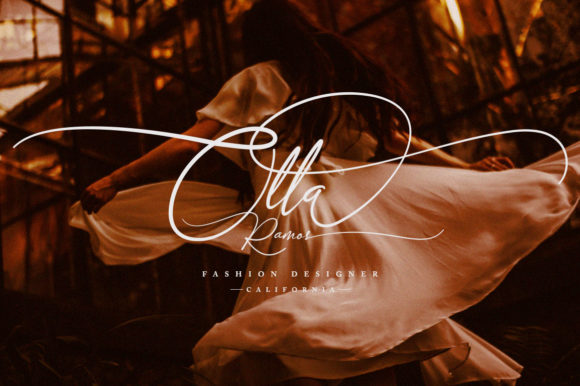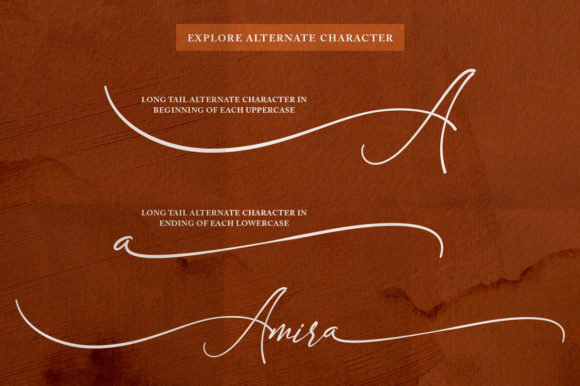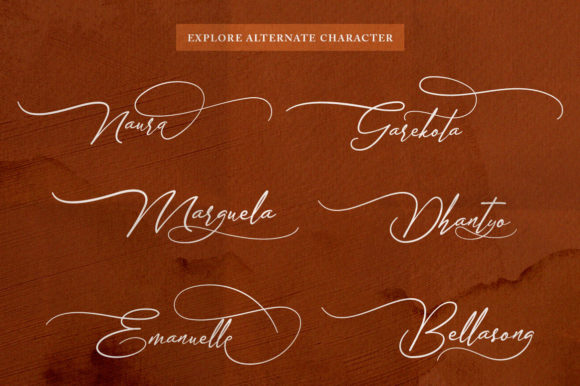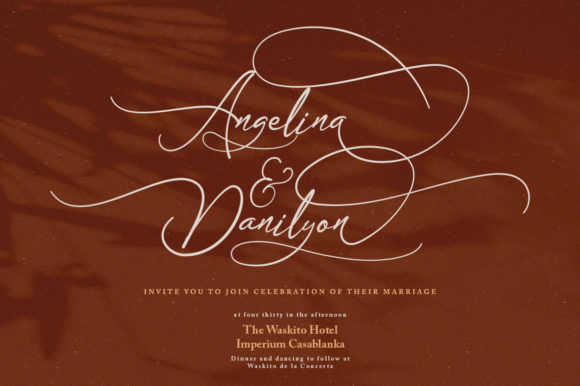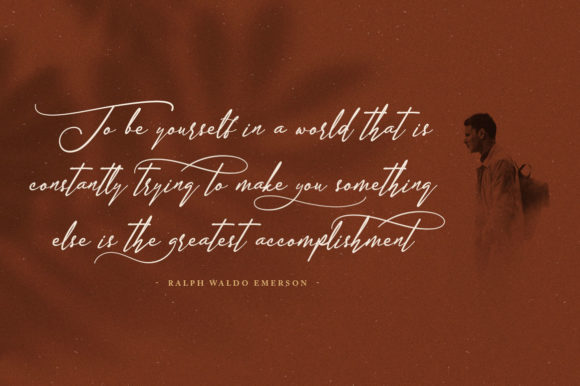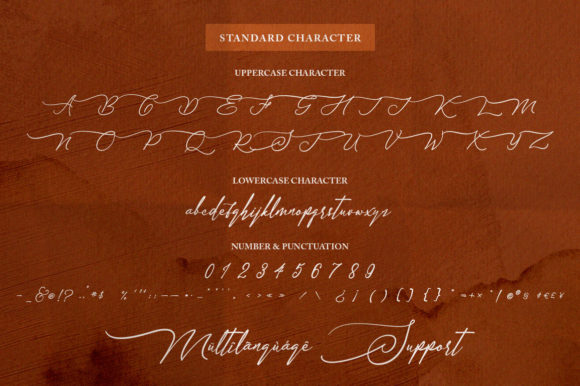
Introduction to Sandrina Font
Sandrina is a gorgeous calligraphy script font.
It features an incredibly classic style, while still keeping a friendly feel Sandrina is the perfect font for making original and outstanding designs.
Key Features of Sandrina Font